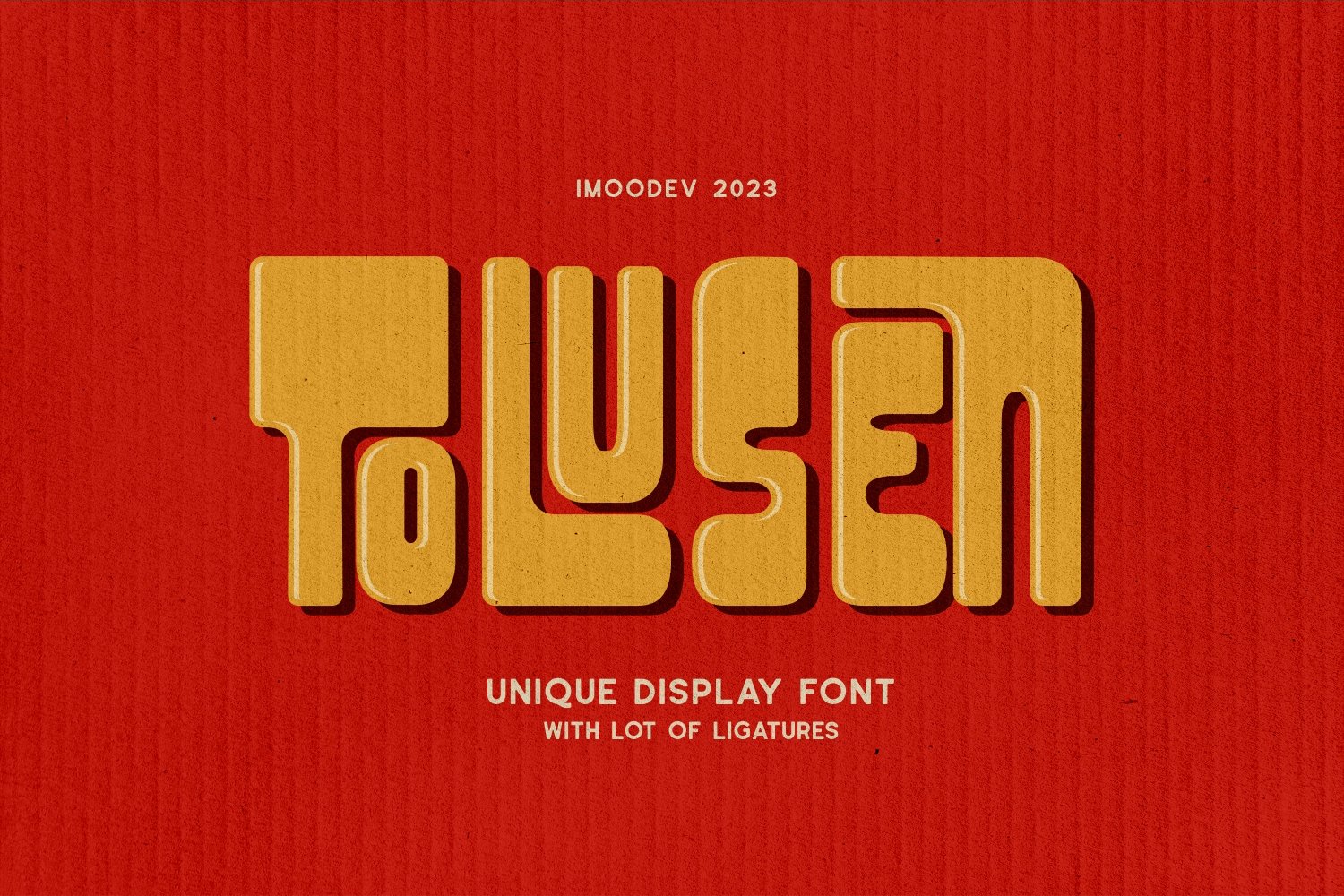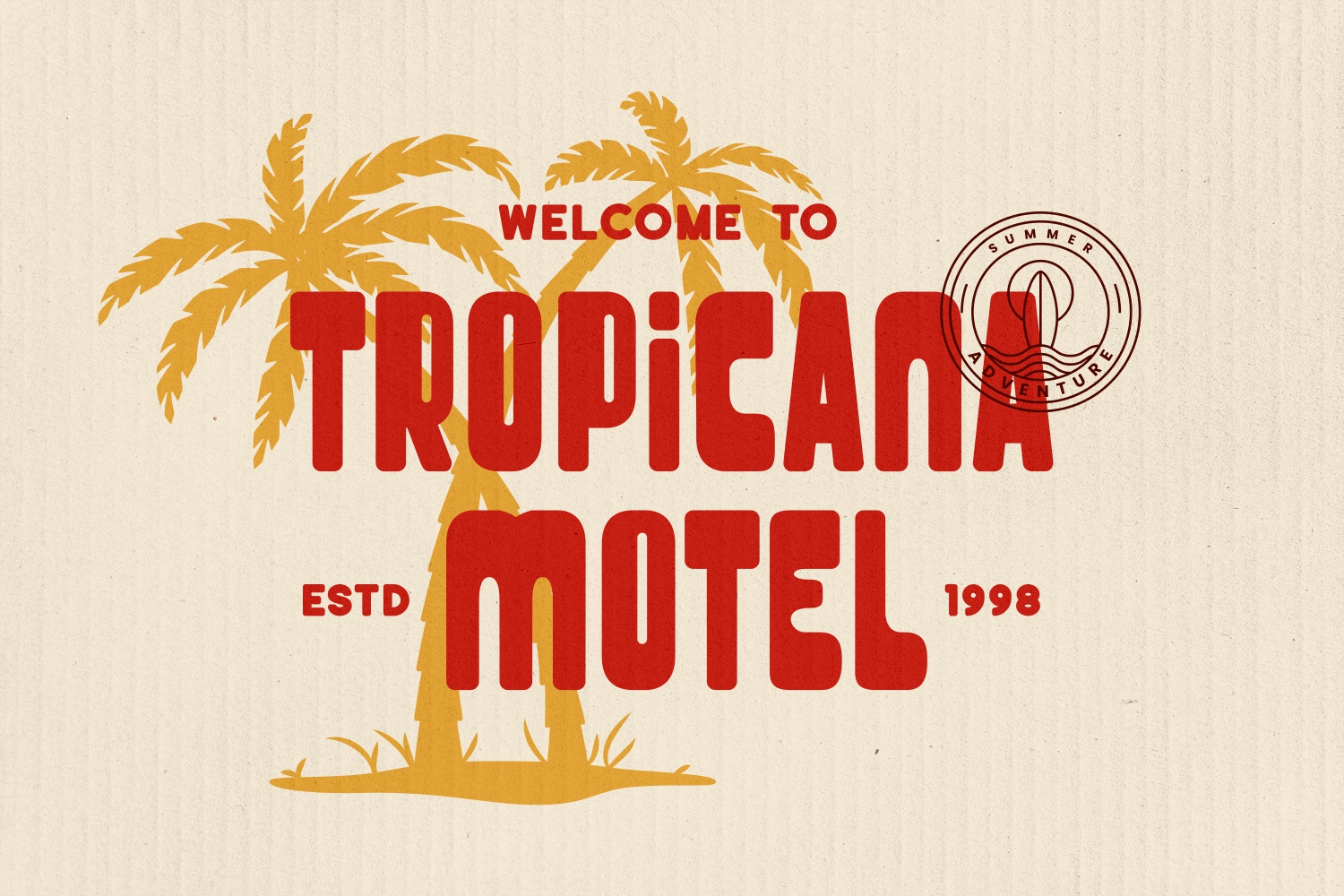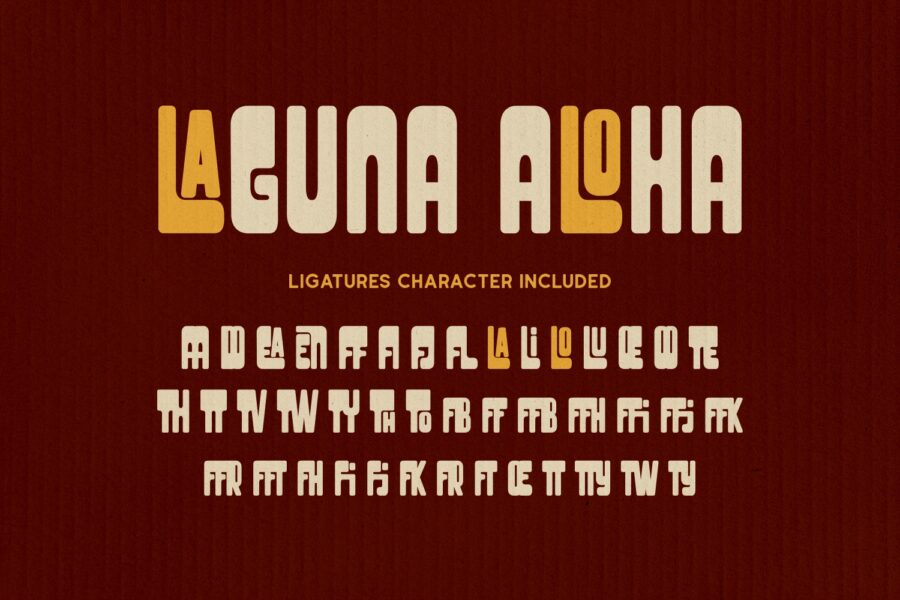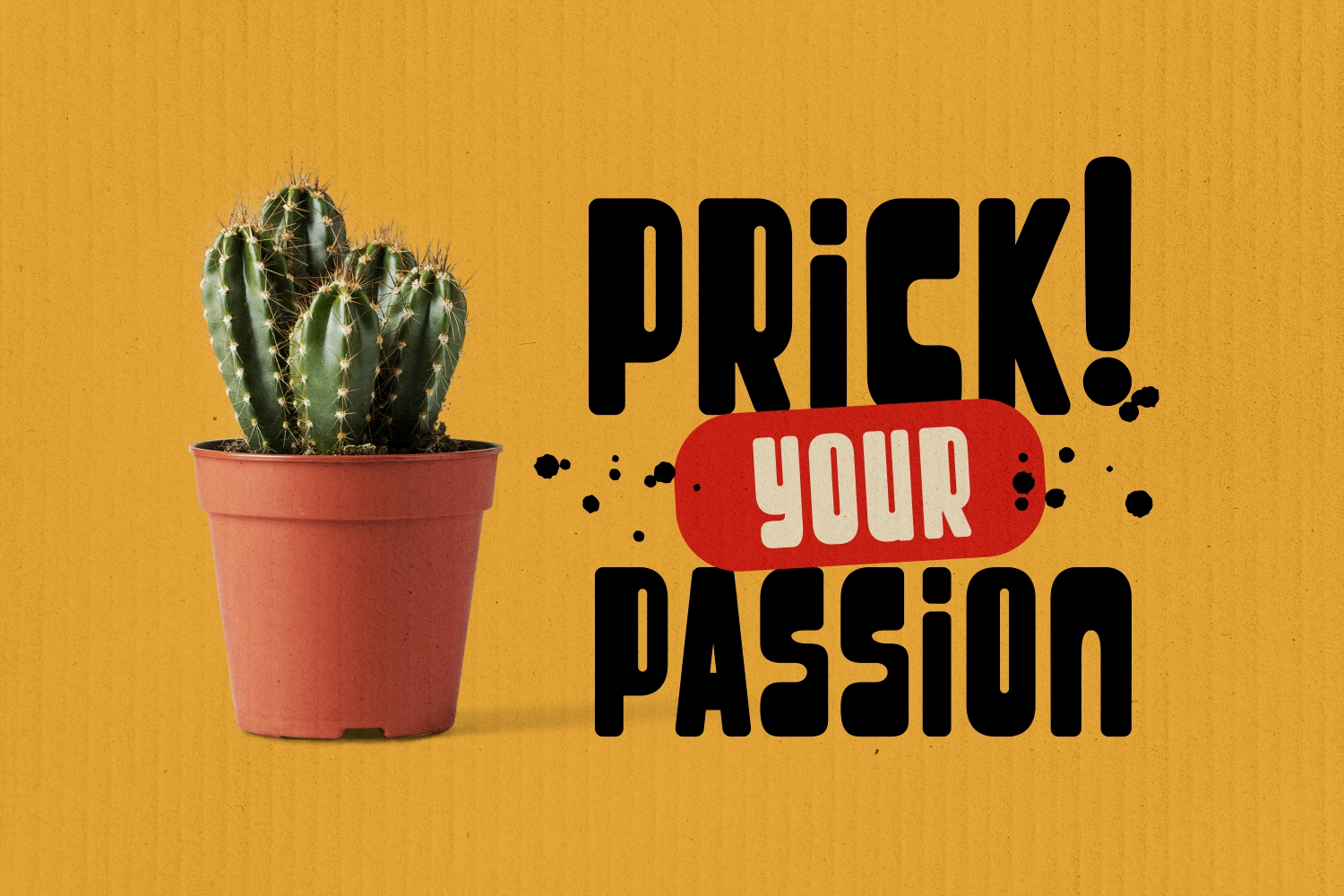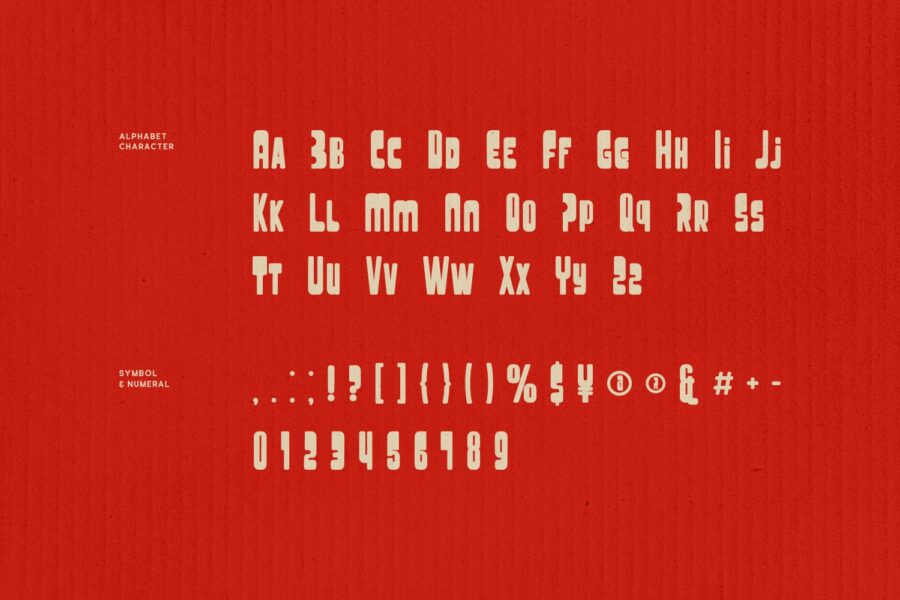
Tolusen is a bold and unique display font that combines retro charm with a modern twist. Featuring thick, geometric letterforms and creative ligatures, this font stands out with its distinctive style, perfect for projects that demand a strong and artistic personality. Its playful yet structured shapes make it an excellent choice for vintage posters, branding, headlines, and logo designs.
With its wide variety of ligatures and stylistic alternates, Tolusen brings versatility and originality to your creative work. From retro-inspired packaging to eye-catching event graphics, this font delivers a striking visual impact that blends nostalgia with contemporary design. Its bold presence ensures your message is seen and remembered, making it a perfect typeface for expressive and standout projects.
Tolusen